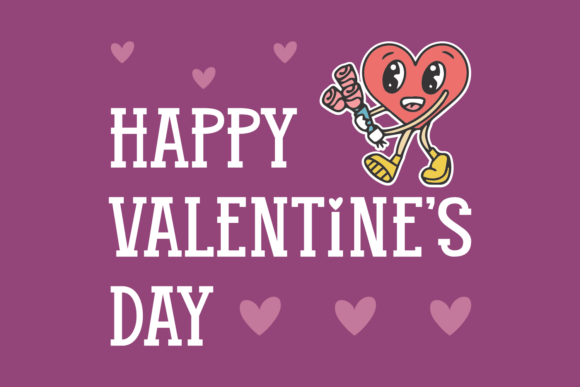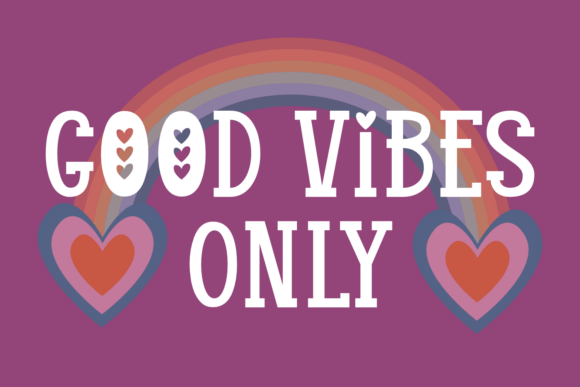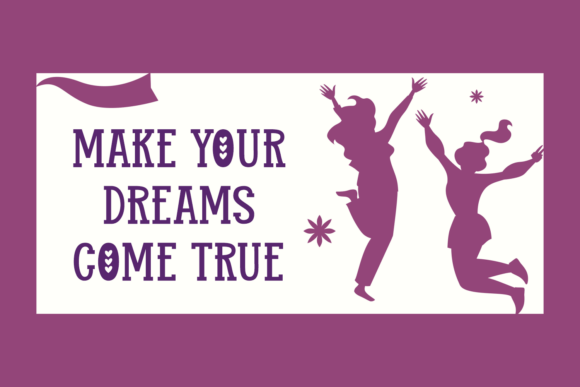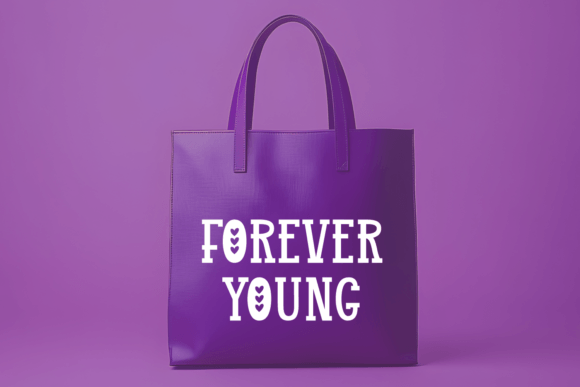
Introduction to Love Hits Font Font
Fonts play a crucial role in design, and the Love Hits Font font is a typeface that brings both character and versatility to any project. Whether you’re working on a branding project, a website, or a print design, the Love Hits Font font offers a unique style that can elevate your work.
Welcome to โLove Hitsโ, a distinctive Slab Serif Font designed to infuse a sense of affection and romance into your creative works.
Ideal for your Valentines Day expressions, wedding bellsโ heralding, and stirring love messages, this font adds tenderness to your greeting cards, school crafts, and branding identities Whether used in logotypes, book covers, craft projects, magazines, or posters, โLove Hitsโ seamlessly blends in, exuding a whimsical yet feminine ambiance.
Key Features of Love Hits Font Font
- โ High-quality typeface designed for professional use
- โ Includes a wide range of glyphs and characters
- โ Ideal for logos, branding, websites, and print
Why Choose Love Hits Font Font?
The Love Hits Font font is more than just a typeface โ it’s a design tool that helps you communicate your message with style and clarity. Its unique character set and versatile design make it suitable for a wide range of applications, from elegant invitations to bold headlines.
With its carefully crafted letterforms and balanced proportions, the Love Hits Font font ensures readability and visual appeal across all mediums.
What makes Love Hits Font font special?
The Love Hits Font font stands out with its unique design, exceptional readability, and versatility across various design applications.